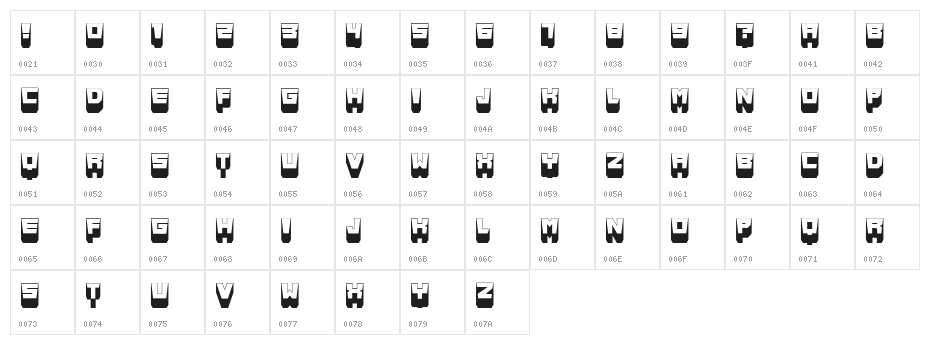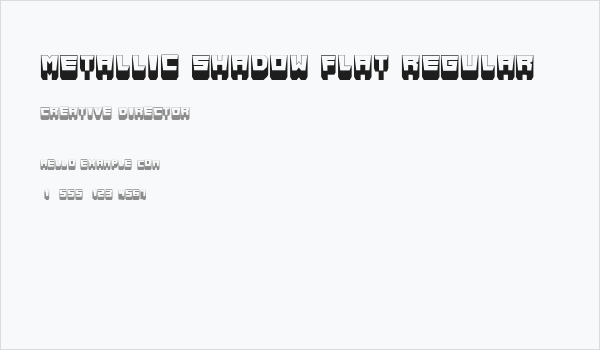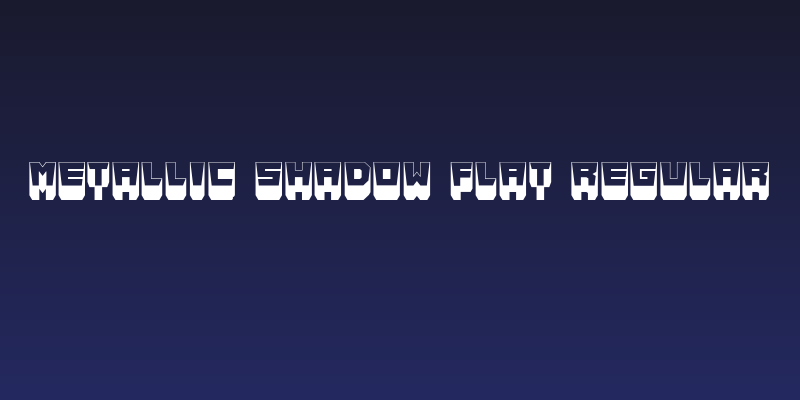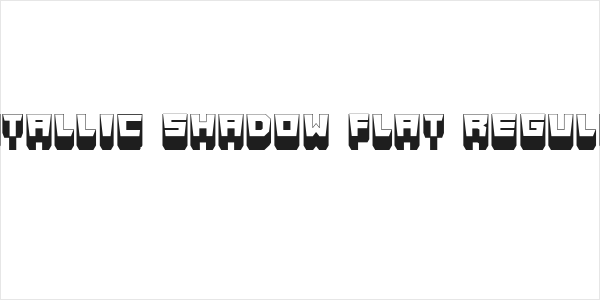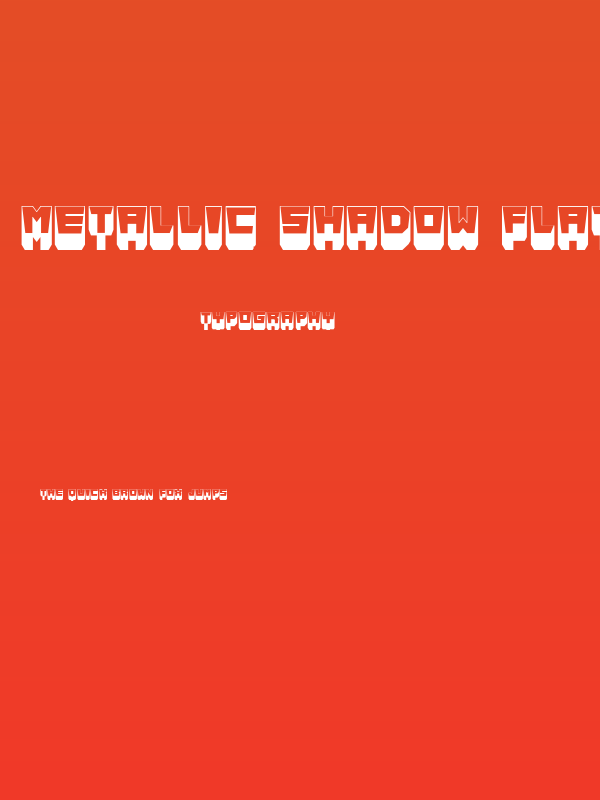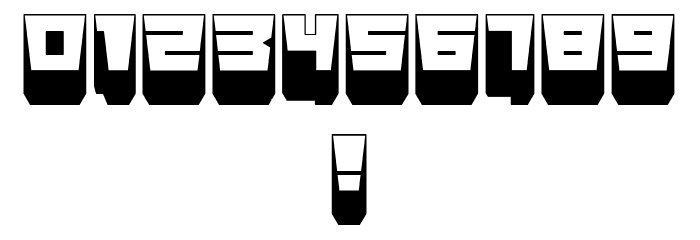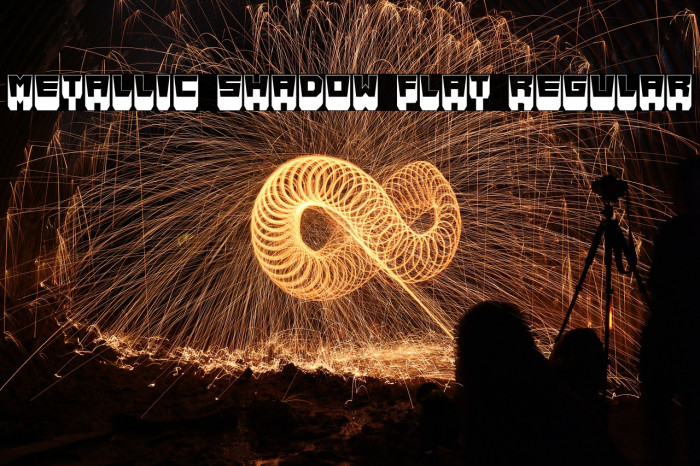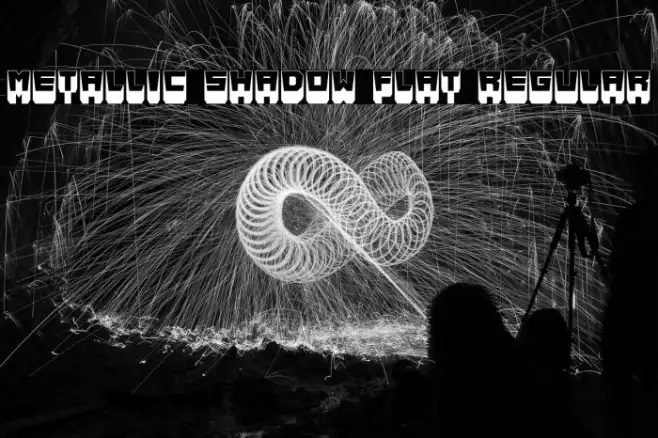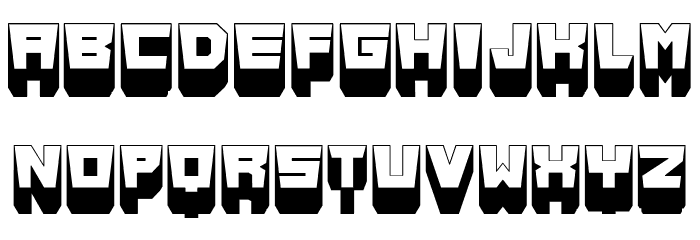
Metallic Shadow Flat Regular Font
Metallic Shadow Flat Regular Description
This font features a bold, three-dimensional appearance with a metallic and shadowed effect, giving it a striking and impactful look. The characters are blocky and geometric, with sharp angles and clean lines that enhance the 3D illusion. The shadow effect adds depth and dimension, making the letters appear as if they are popping off the page. This style is reminiscent of futuristic or industrial design, making it ideal for projects that require a strong visual presence. The uppercase letters are consistent in height and width, providing a uniform and cohesive look across the alphabet. The numbers and special characters maintain the same bold and shadowed style, ensuring a seamless integration with the letters.